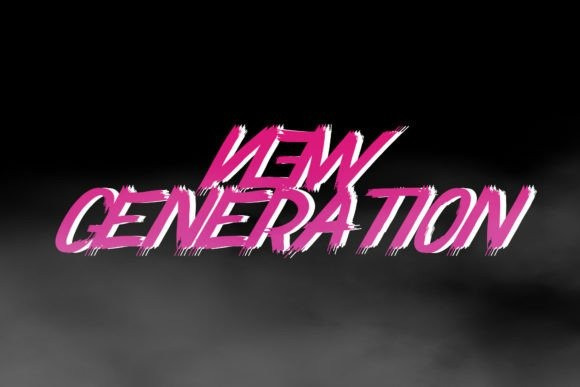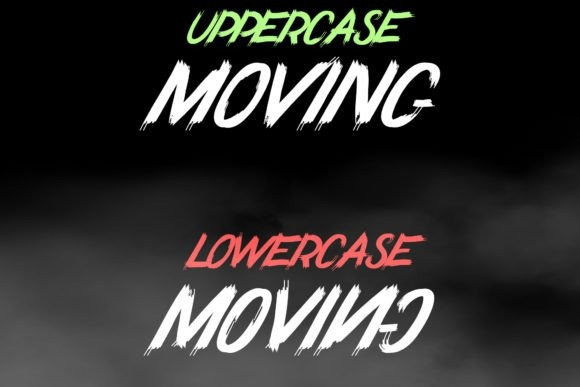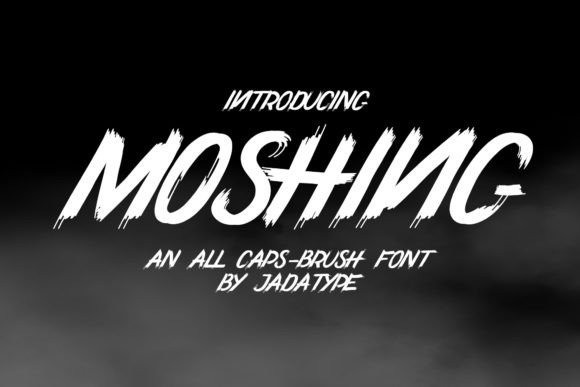
Moshing Font
Moshing Brush Font is a font with brushed lines. It is suitable for your design needs, t-shirt design, social media design, product design, branding design, crafts, advertising, and others.